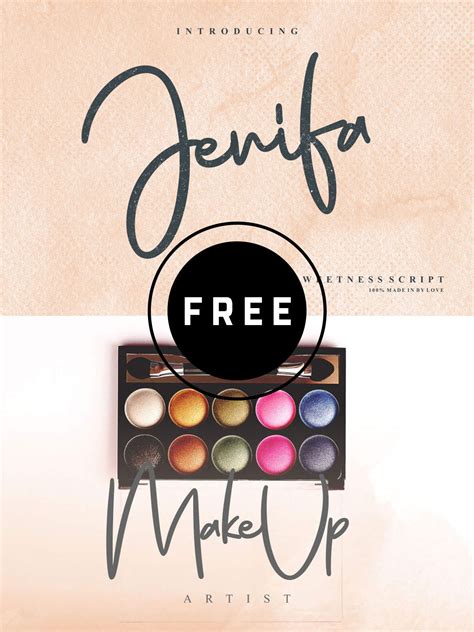
Best Script Fonts Easy Reading For A Speach - Free Fonts to Download - The Ultimate Free Fonts ... : Different fonts can be used and look best on different uses.. Truetype and opentype fonts available. What with e readers being able to customise fonts and all. Check out these tips for successful live to help your next presentation go well, check out these quick and dirty tips for writing scripts and if you include notes, be sure to put your notes on a different page or in a different font color so your speaker. Cursive · script · feminine · masculine · formal · informal · messy · neat · scribbled free fonts for commercial use · new & fresh fonts · most popular fonts · alphabetic fonts. Since there are so many fonts in there, we picked out some of our favorites to highlight.
Browse our continually growing collection of free we have established a set of best practices that will align your voice over website with the top performers. Script font is a broad style that refers to any typeface that looks like it was drawn by hand. The drawbacks of reading from a script. Looking for stylish free script fonts for a signature, a watermark for your photos, or a hip project that's missing something? Whether it's for a wall sign, wedding invitations, or just for fun, we have many script fonts available in design space. Because you've got better things to do with your time than memorize a speech that you'll only 5. Looking for a great list of the best free script fonts? For fonts that most people have, verdana is a fine choice.
This lack of feet makes sans serif fonts a bit easier to read, as your brain has to process less visual information. If you're reading your speech, make that easy! So what fonts, what spacing, what justification should i use? Check out our easy script font selection for the very best in unique or custom, handmade pieces from our digital shops. Archive of freely downloadable fonts. Consider the easiest font to read when designing your website. 2012 easy speech version 1. I love jesus, my family, and sharing easy recipes. Some scripts are more formal like elegant calligraphy, while others are casual like cursive handwriting. Truetype and opentype fonts available. Whether it's for a wall sign, wedding invitations, or just for fun, we have many script fonts available in design space. Platform supported unicode macintosh microsoft. We use a past perfect continuous he said,i have been reading for ages in indirect speech it becomes, he said he had been reading for ages.
I love jesus, my family, and sharing easy recipes. For most adults reading a book, the difference between sans serif. So you can use these fonts for your logos, clothing, banners, posters, or even youtube thumbnails! Consider the easiest font to read when designing your website. These free public domain scripts are available as a resource for voice over talent looking for a practice voice over script?
You've landed on the right blog post. If you are using google docs or google slides, you can add more fonts from the google fonts service (wh. If you're reading your speech, make that easy! Check out our easy script font selection for the very best in unique or custom, handmade pieces from our digital shops. Reading a speech is not the recommended way to deliver a speech. Truetype and opentype fonts available. Well as you can see from the font generator above, there are some fonts (like old english) that are a bit harder to read. Browse by alphabetical listing, by style, by author or by popularity.
Typography is currently playing a central role in web design, with progressive improvements like variable fonts, css shapes, flexbox, css grids and subgrid definitively changing the way we work with typography in web design.
These free public domain scripts are available as a resource for voice over talent looking for a practice voice over script? Looking for a great list of the best free script fonts? If you paid for this font, you've been f. In the unlikely case that you drop your script, you can put the pages back in order without. Etsy uses cookies and similar technologies to give you a better experience, enabling things like: Truetype and opentype fonts available. Script fonts are an easy way to add a fancy feel to your designs. Looking for stylish free script fonts for a signature, a watermark for your photos, or a hip project that's missing something? Check out our easy script font selection for the very best in unique or custom, handmade pieces from our digital shops. For most adults reading a book, the difference between sans serif. Because you've got better things to do with your time than memorize a speech that you'll only 5. If you're reading your speech, make that easy! Licensed for personal and commercial use.
Download 10,000 fonts with one click for $19.95. You've landed on the right blog post. For a better reading experience, i think a serif font like adobe garamond. Browse by alphabetical listing, by style, by author or by popularity. In the unlikely case that you drop your script, you can put the pages back in order without.
Check out these tips for successful live to help your next presentation go well, check out these quick and dirty tips for writing scripts and if you include notes, be sure to put your notes on a different page or in a different font color so your speaker. Well as you can see from the font generator above, there are some fonts (like old english) that are a bit harder to read. So whether you're looking for a. Different fonts can be used and look best on different uses. These free public domain scripts are available as a resource for voice over talent looking for a practice voice over script? Are there proven standards for that? If you paid for this font, you've been f. If you're reading your speech, make that easy!
If you're reading your speech, make that easy!
Do you have any advice on what type of paper to use for a speech, or what's the best quality of paper? Different fonts can be used and look best on different uses. Check out these tips for successful live to help your next presentation go well, check out these quick and dirty tips for writing scripts and if you include notes, be sure to put your notes on a different page or in a different font color so your speaker. For fonts that most people have, verdana is a fine choice. Free easy speech font download. 000 2012 initial release easyspeech easy speech is a trademark of this font can be uploaded to a free fonts website but the original archive must not be altered in any way. Cursive · script · feminine · masculine · formal · informal · messy · neat · scribbled free fonts for commercial use · new & fresh fonts · most popular fonts · alphabetic fonts. Well as you can see from the font generator above, there are some fonts (like old english) that are a bit harder to read. A collection of the best script fonts to use in 2020. This lack of feet makes sans serif fonts a bit easier to read, as your brain has to process less visual information. Because you've got better things to do with your time than memorize a speech that you'll only 5. Handpicked script fonts best suited for diy projects & tips on how to use fonts in design. So you can use these fonts for your logos, clothing, banners, posters, or even youtube thumbnails!